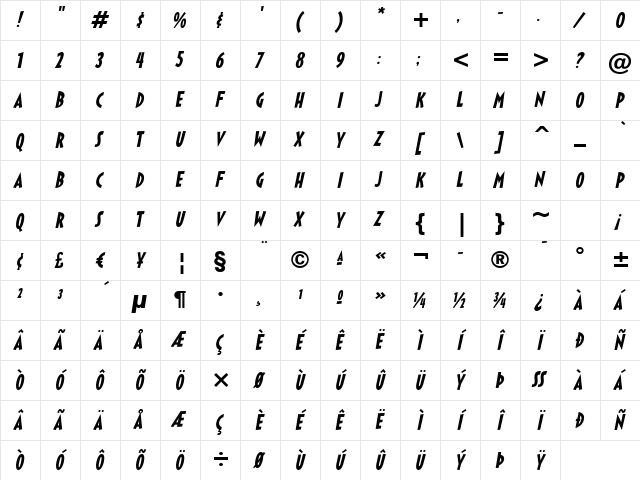
Complete Sticky Moula BTN Oblique glyph index. Displaying only characters natively supported by Sticky Moula BTN Oblique font.
Sticky Moula BTN is a composed and adaptable typeface that performs quietly and consistently across a wide range of design contexts. The slanted form adds forward momentum and visual energy.
Pro Tip: Use Sticky Moula BTN for emphasis, pull quotes, and subheadings where its slanted energy can add rhythm to the layout.